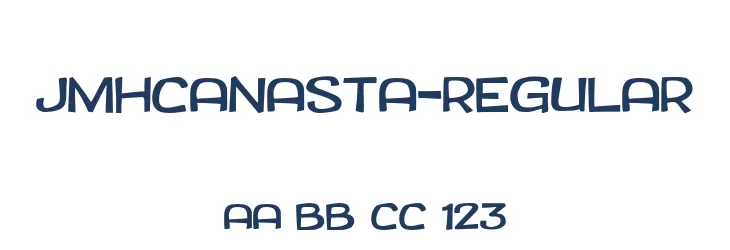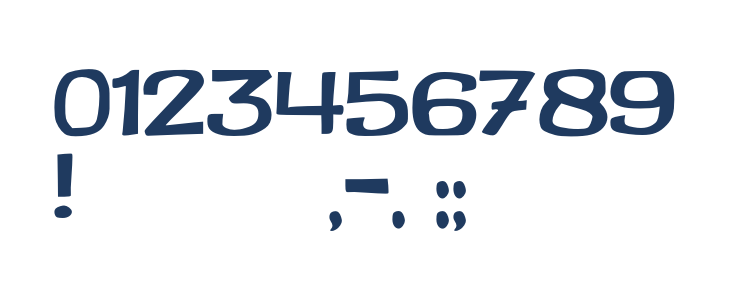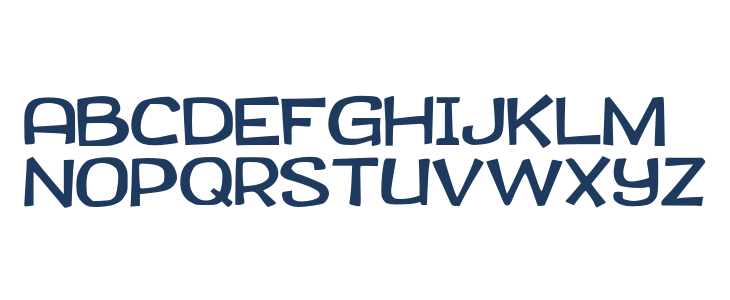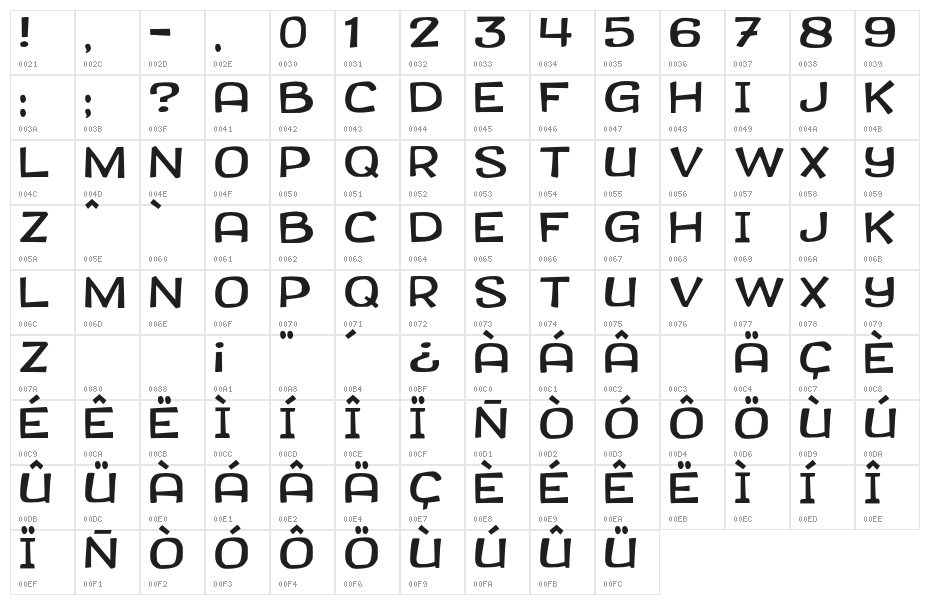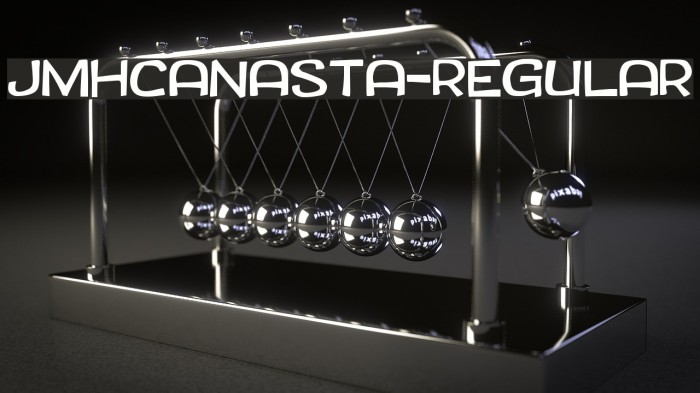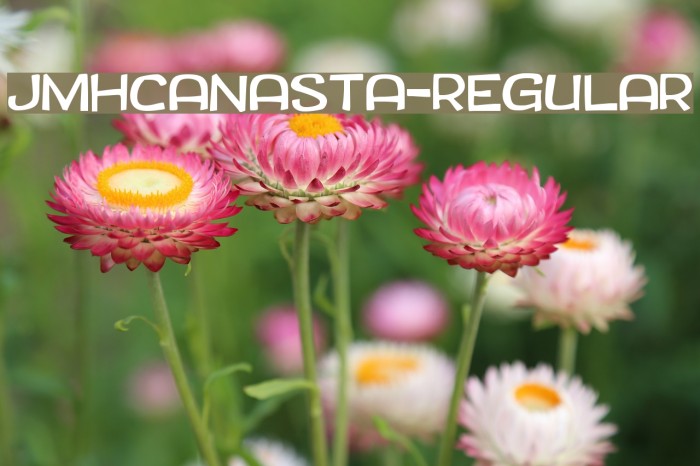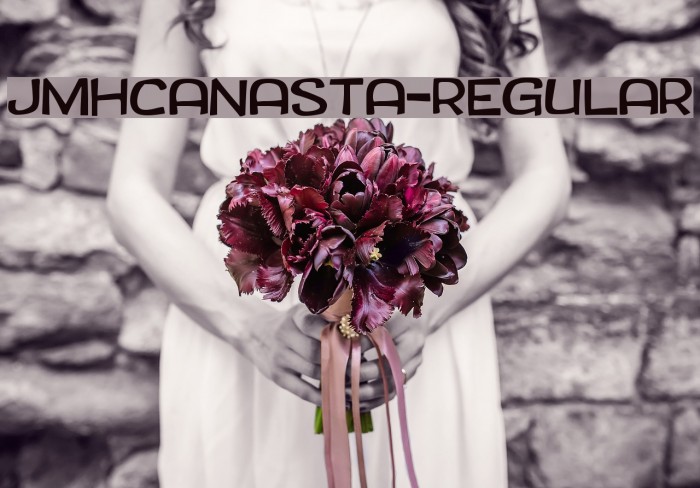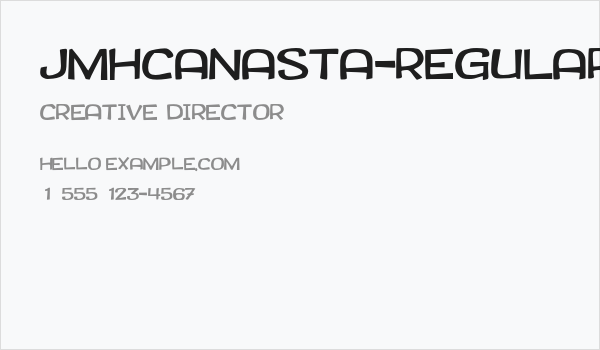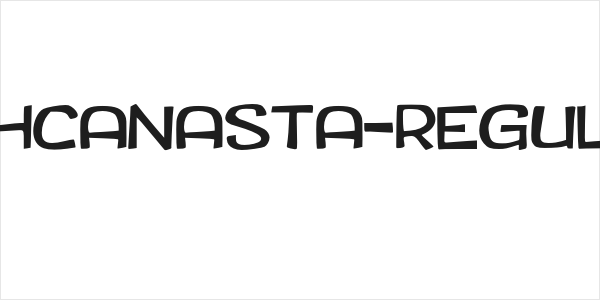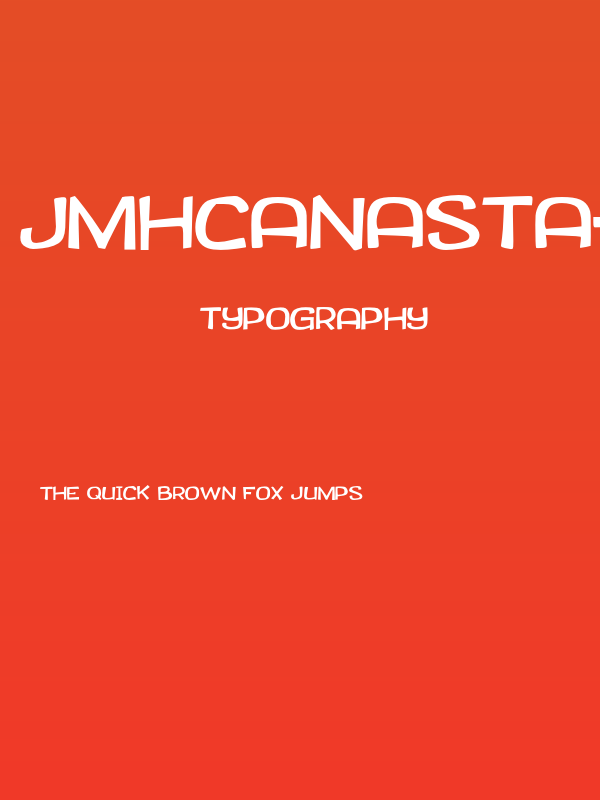
JMHCANASTA-Regular Font
JMHCANASTA-Regular Description
This font features a playful and dynamic style, characterized by its bold and slightly irregular letterforms. The uppercase letters exhibit a unique, hand-drawn quality with varying stroke thickness, giving it a lively and informal appearance. The lowercase letters maintain this whimsical style, ensuring consistency across the typeface. The numerals are bold and easily readable, complementing the overall design. Special characters are included, adding versatility for various uses. The font's distinctiveness makes it suitable for creative projects that require a touch of personality and flair.
| Overall Style | Playful, Creative |
| Proposed Projects | Ideal for children's books, comic strips, playful branding, and creative posters. |